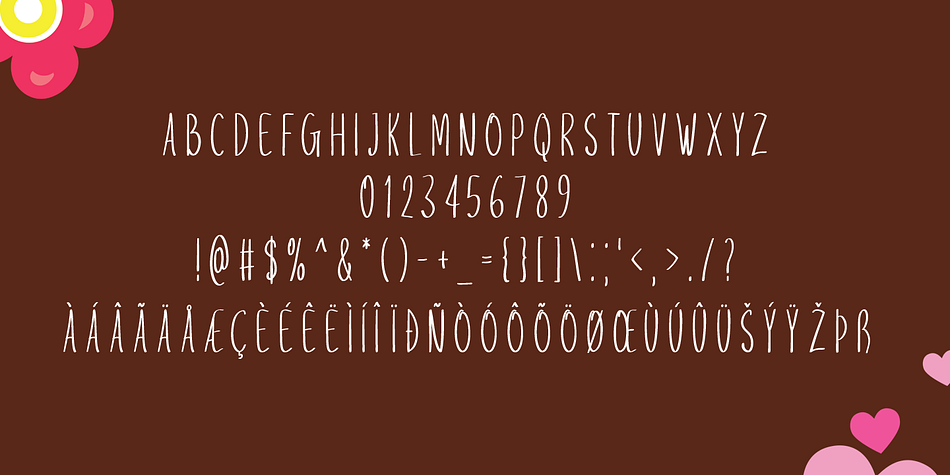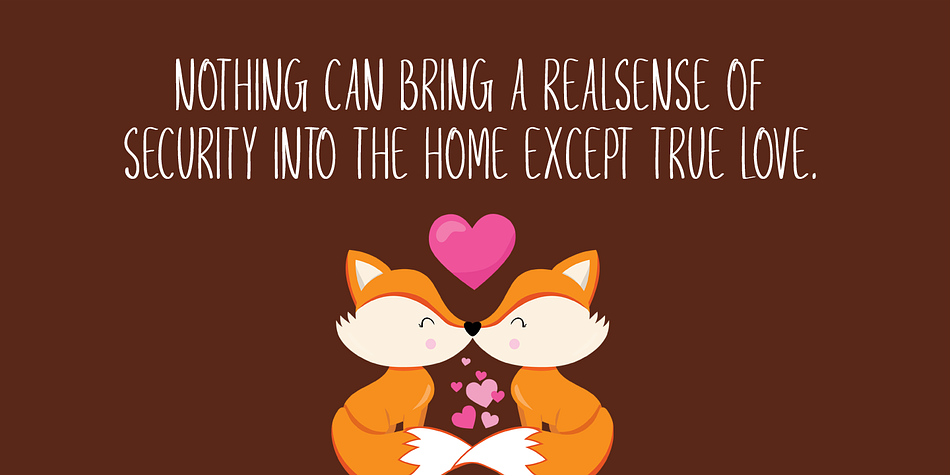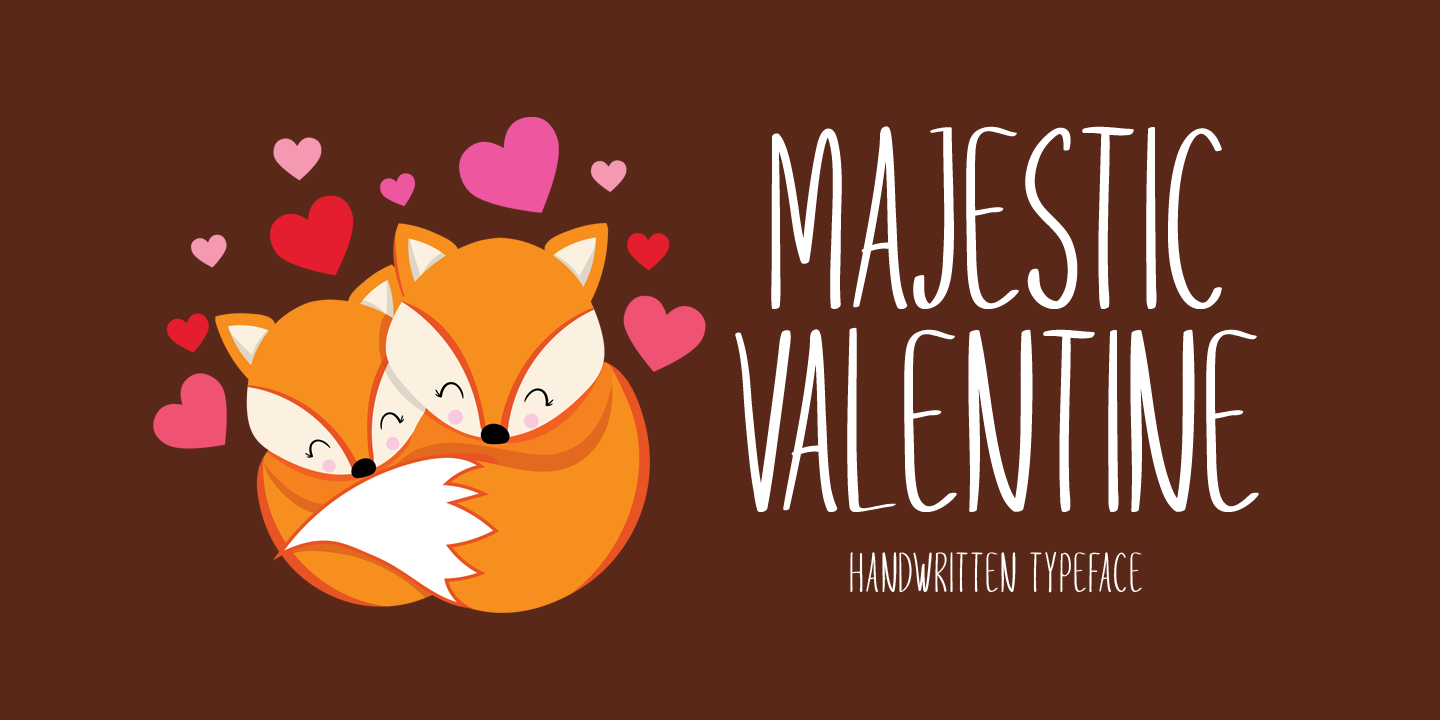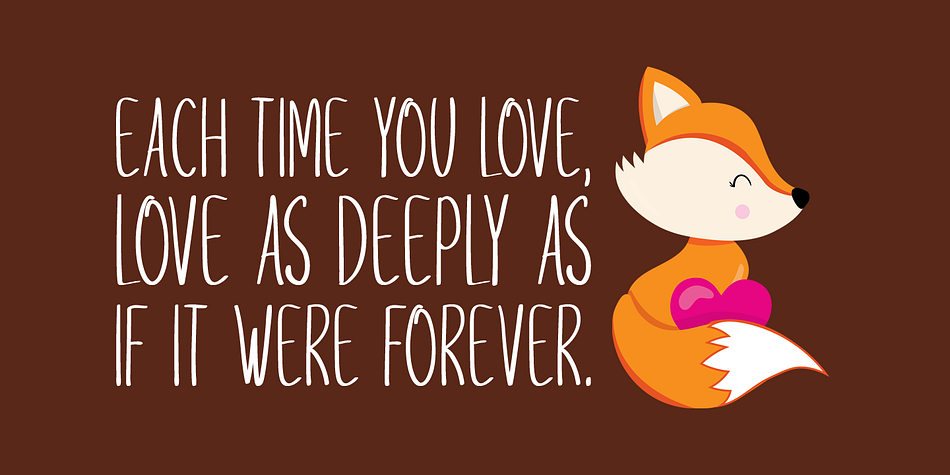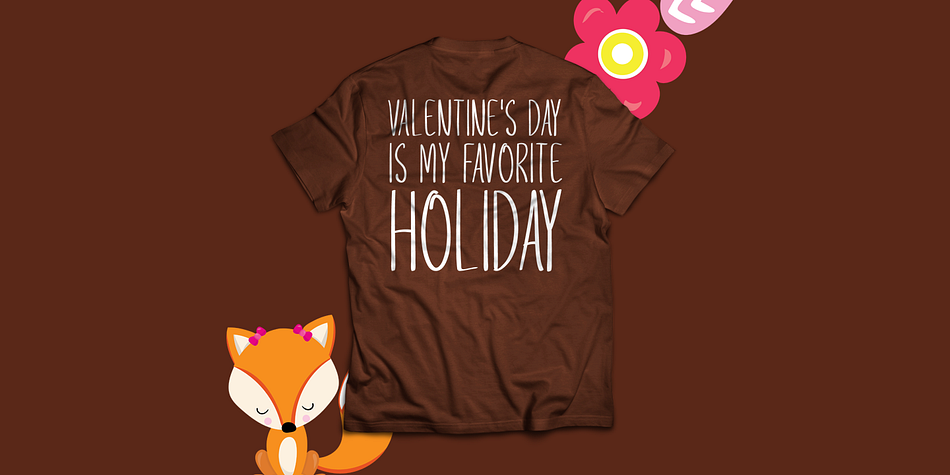
Designed by Md. Shohail Bhuiyan, Majestic Valentine is a hand drawn font published by Seemly Fonts.
Majestic Valentine is a tall and fun handwritten font. It features a cute and joyful style that will take your designs to the next level!
Foundry | Seemly Fonts |
Designer | Md. Shohail Bhuiyan |